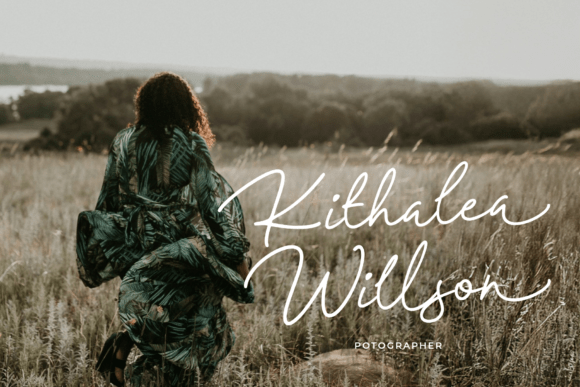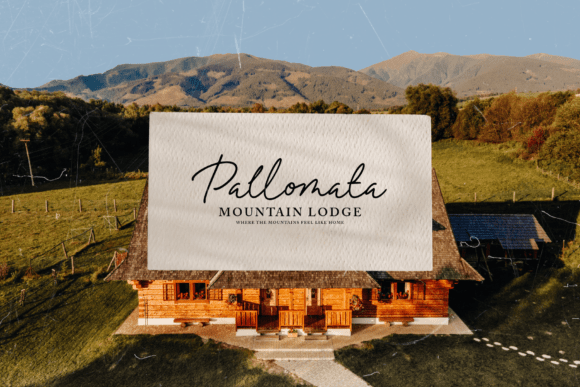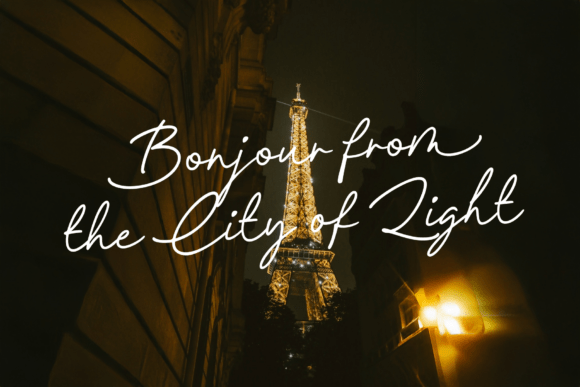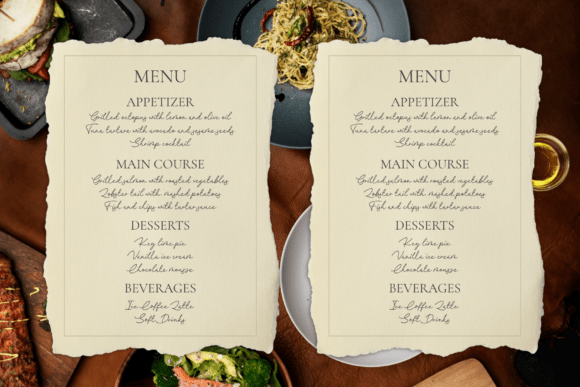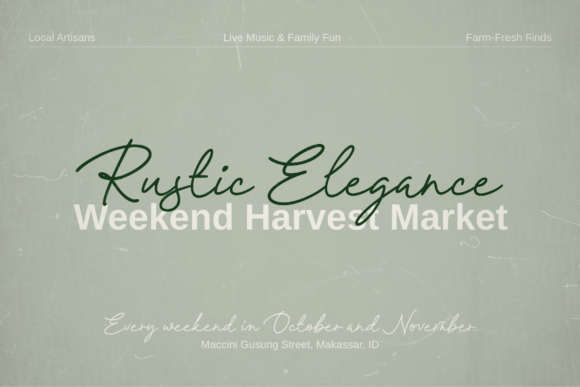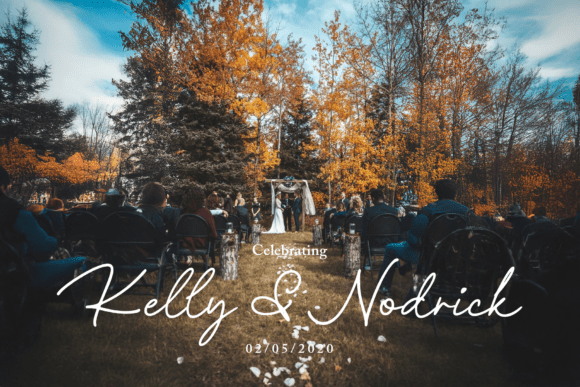
Discover the Charm of Collins Hearthfield Font: A Warm and Inviting Handwritten Script
Are you looking for a font that can add a touch of warmth and coziness to your designs? Look no further than Collins Hearthfield, a beautiful handwritten script font that is inspired by the serenity of open fields, gentle wind, and quiet rural moments. This stunning font is perfect for designers and crafters who want to create designs that feel organic, natural, and authentic.
The Inspiration Behind Collins Hearthfield
Collins Hearthfield is a font that is deeply rooted in nature. Its smooth strokes and natural rhythm are reminiscent of a gentle breeze on a summer day, creating a relaxed yet elegant feel that is perfect for a wide range of design applications. The font’s creator was inspired by the beauty of the countryside, where the air is fresh, and the pace of life is slow. As a result, Collins Hearthfield is a font that feels calming, soothing, and peaceful.
Characteristics of Collins Hearthfield
So, what makes Collins Hearthfield so special? Here are just a few of its key characteristics:
- Warm and inviting: Collins Hearthfield has a warm and welcoming feel that makes it perfect for designs that need a cozy touch.
- Smooth strokes: The font’s smooth strokes create a natural rhythm that is easy on the eye.
- Natural and organic: Collins Hearthfield feels organic and natural, making it perfect for designs that celebrate the beauty of nature.
- Elegant yet relaxed: The font has an elegant feel, yet it is also relaxed and casual, making it perfect for a wide range of design applications.
- Clear and easy to read: Collins Hearthfield is clear and easy to read, both in print and digital use.
Use Cases for Collins Hearthfield
Collins Hearthfield is a versatile font that can be used in a wide range of design applications, including:
- Branding: Use Collins Hearthfield to create a warm and inviting brand identity that feels organic and natural.
- Logos: The font’s elegant yet relaxed feel makes it perfect for logos that need to convey a sense of calm and serenity.
- Packaging: Collins Hearthfield is ideal for packaging designs that need to feel natural, organic, and authentic.
- Invitations: Use the font to create beautiful and elegant invitations that feel warm and inviting.
- Quotes: Collins Hearthfield is perfect for quotes and typography designs that need to convey a sense of calm and serenity.
- Social media: The font’s clear and easy-to-read design makes it perfect for social media graphics and posts.
- Lifestyle designs: Collins Hearthfield is ideal for lifestyle designs that celebrate the beauty of nature and the calmness of rural life.
Collins Hearthfield is a beautiful and versatile handwritten script font that is perfect for designers and crafters who want to create designs that feel warm, inviting, and organic. With its smooth strokes, natural rhythm, and elegant yet relaxed feel, this font is ideal for a wide range of design applications, from branding and logos to packaging and lifestyle designs. Whether you’re looking to create designs that celebrate the beauty of nature or simply want to add a touch of warmth and coziness to your designs, Collins Hearthfield is the perfect choice.